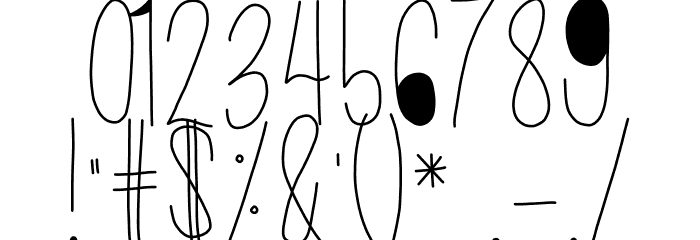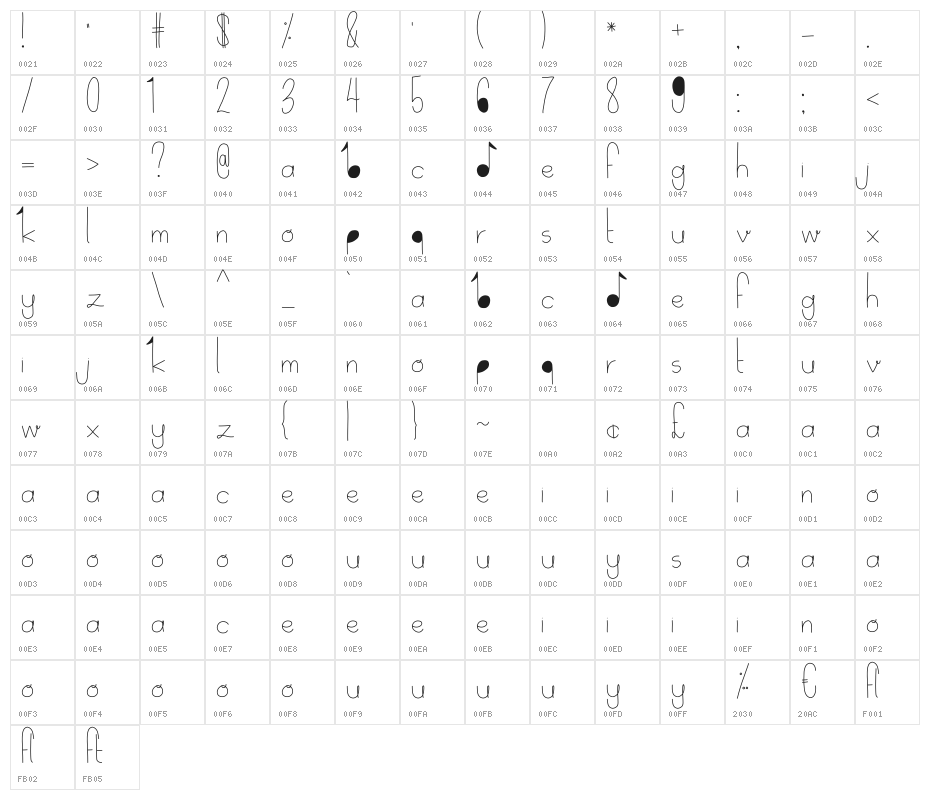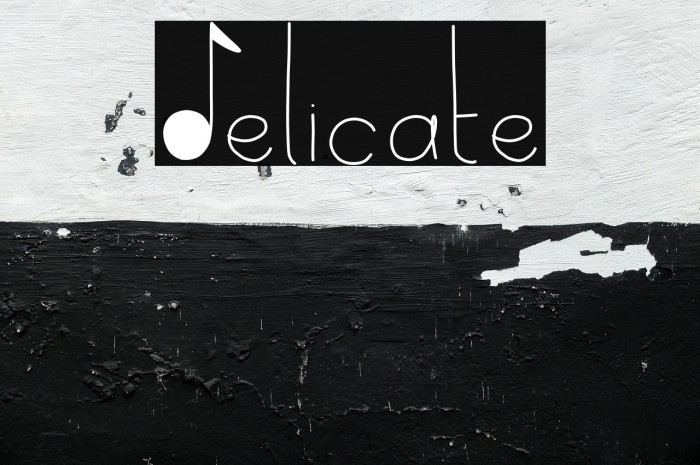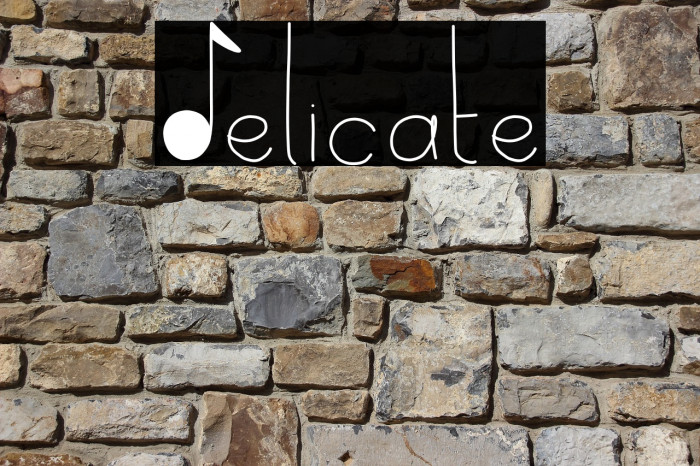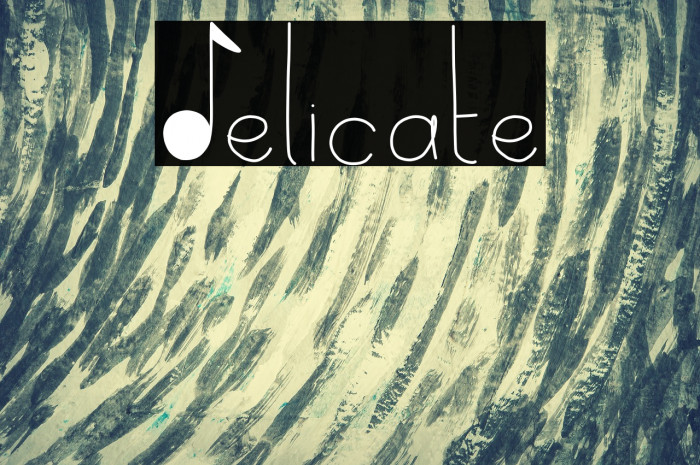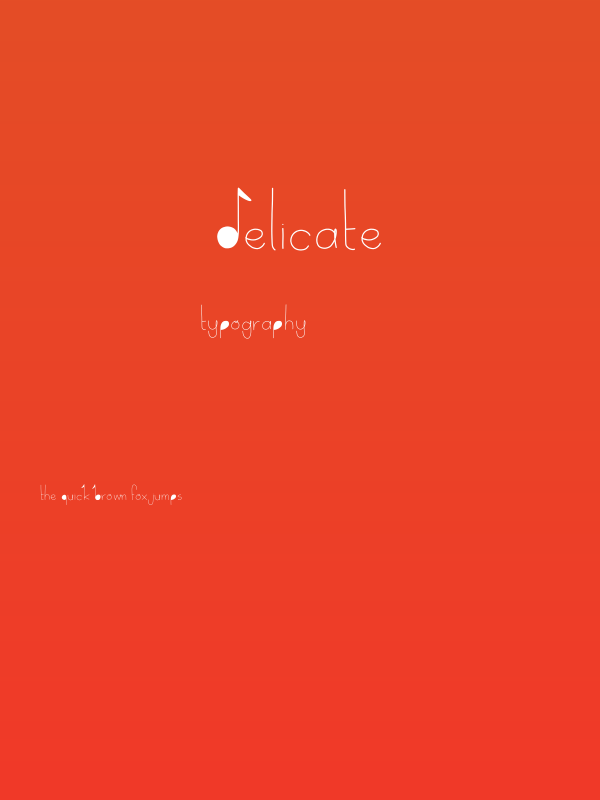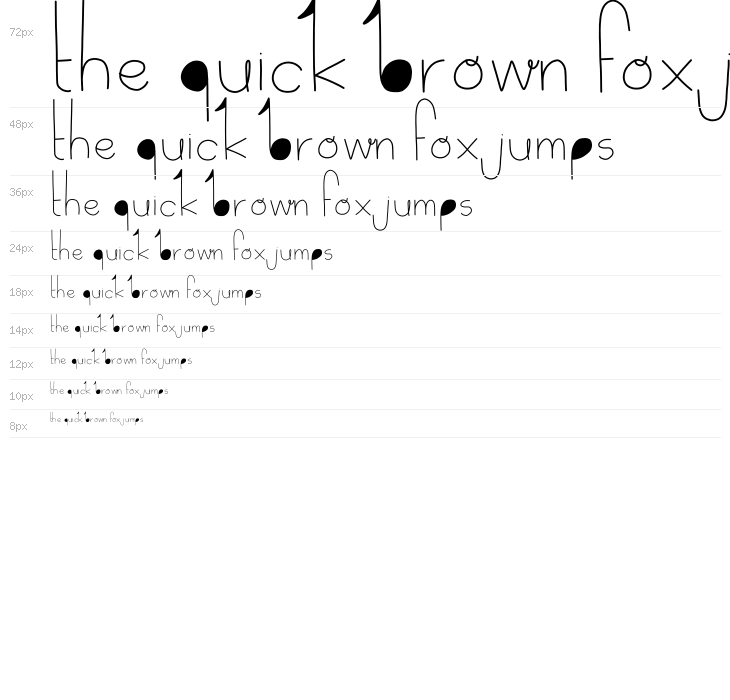
Delicate Font
Delicate Description
This font features a whimsical and playful design, characterized by its unique incorporation of musical note elements into the letterforms. The characters are thin and elongated, with a delicate and airy appearance. The lowercase letters have a consistent height, while the uppercase letters maintain a similar style with slightly more prominence. The numbers follow the same playful theme, with some digits incorporating musical note shapes. Special characters are creatively designed, adding to the overall charm of the font. This font is ideal for projects that require a touch of creativity and musical inspiration.
| Overall Style | Playful, Creative |
| Proposed Projects | Ideal for music-themed posters, children's books, creative invitations, and playful branding. |